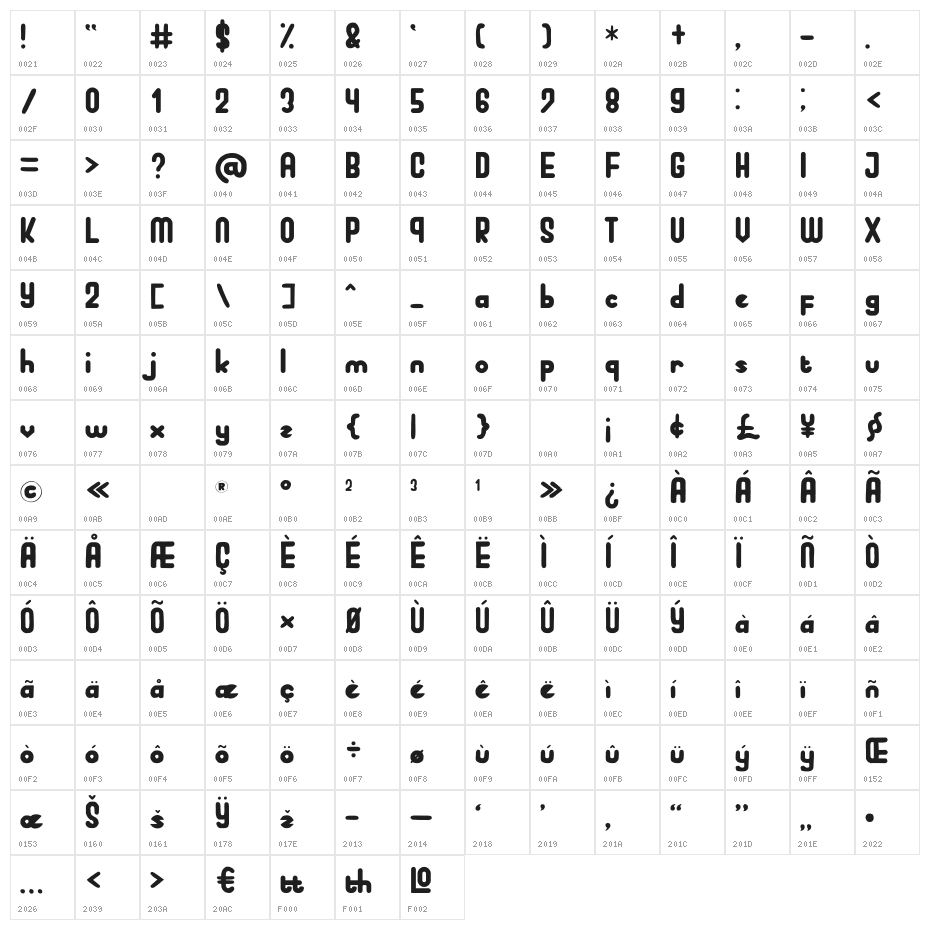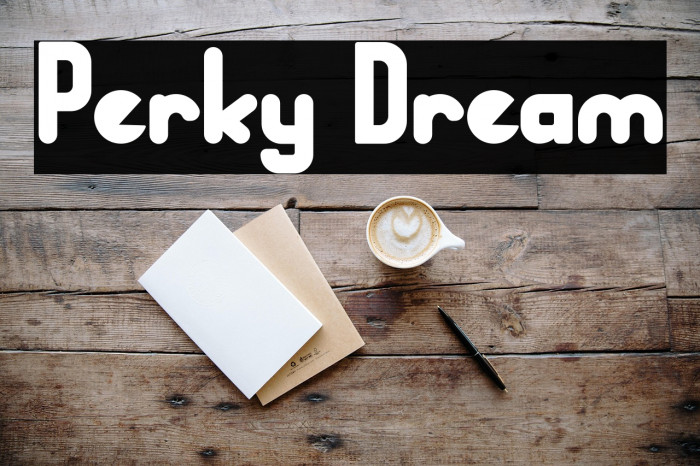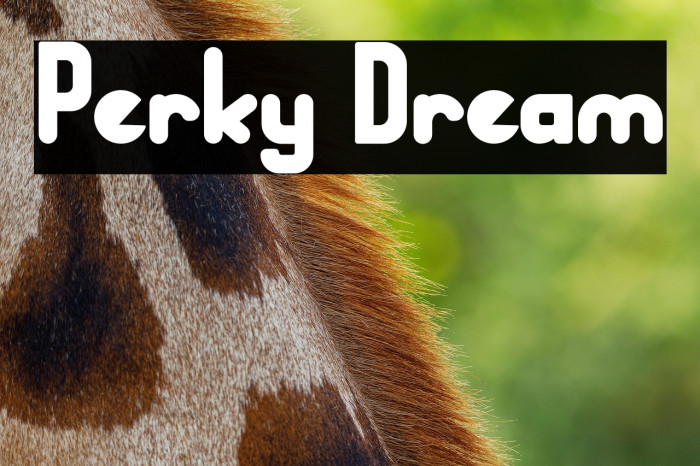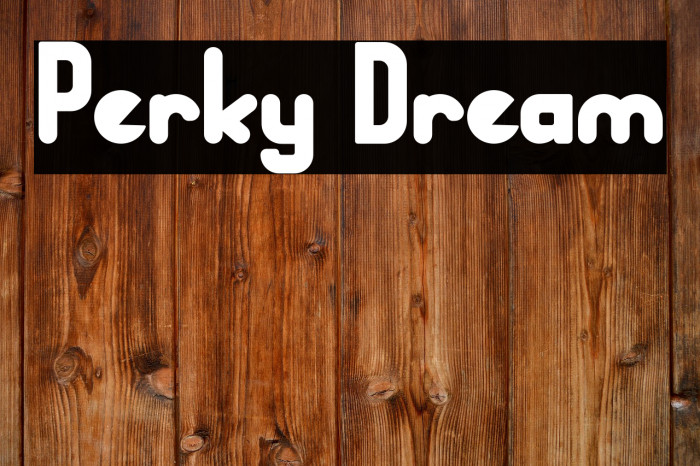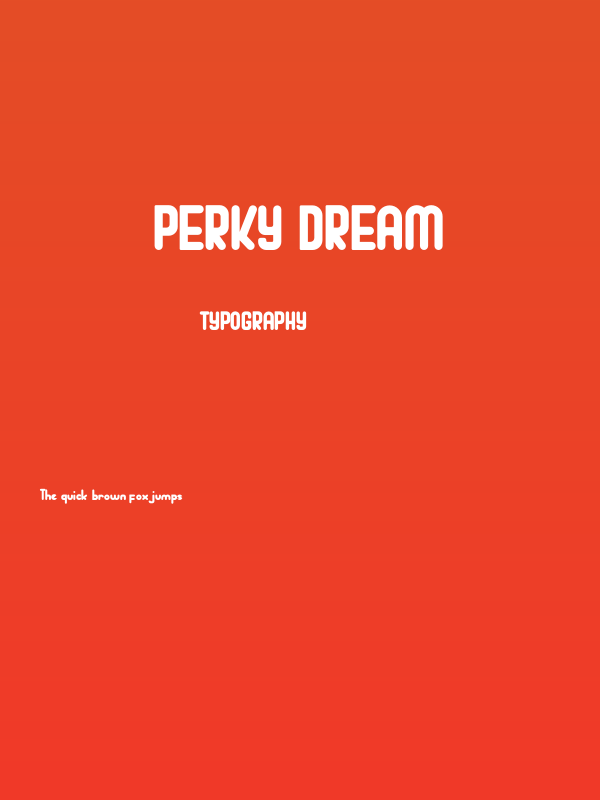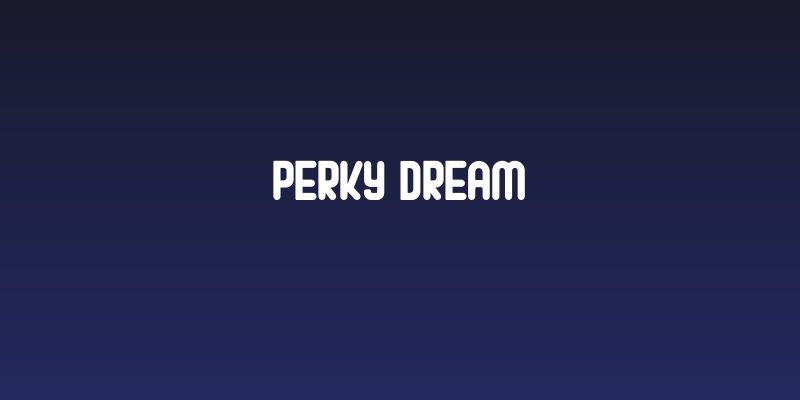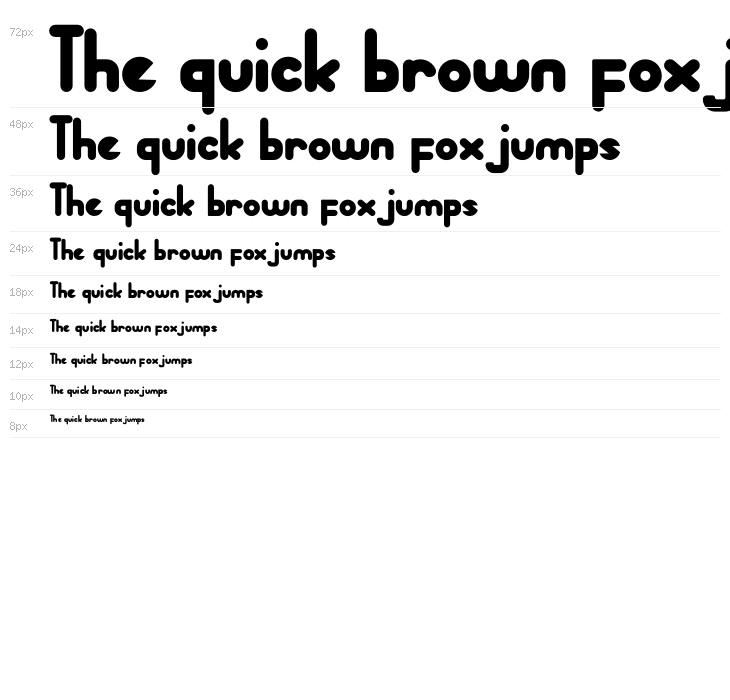
Perky Dream Font
Perky Dream Description
This font features a bold and playful design with rounded edges and a modern aesthetic. The characters are uniformly thick, giving it a strong presence. The uppercase letters are tall and slightly condensed, while the lowercase letters maintain a consistent height, creating a harmonious balance. The numbers are equally bold, ensuring readability and impact. Special characters are designed with the same playful style, making them stand out. This font is ideal for projects that require a fun and engaging look, such as children's books, playful branding, or eye-catching headlines.
| Proposed Projects | Children's books, playful branding, eye-catching headlines, posters, and advertisements. |